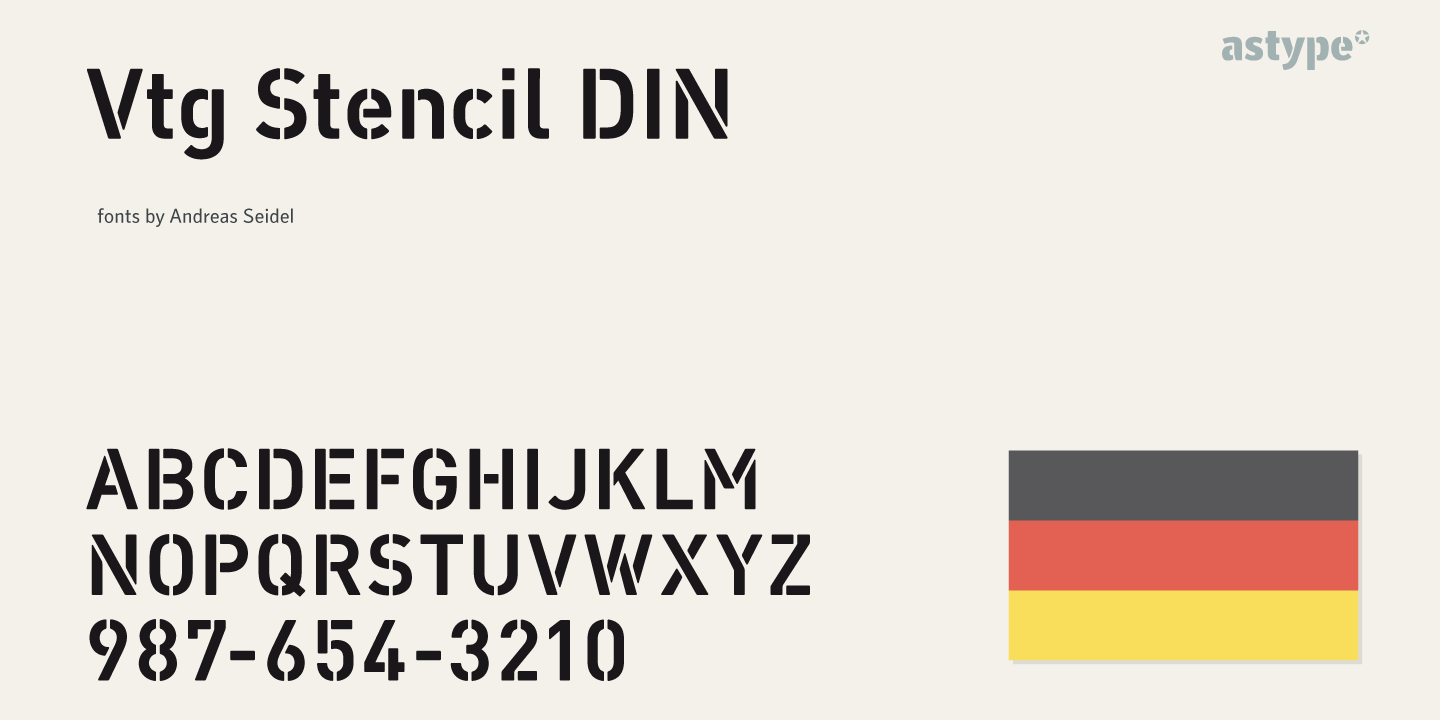
Unleash industrial-strength typography with VTG Stencil DIN Font Free Download – a rugged, no-nonsense typeface that combines German engineering precision with raw urban edge. Inspired by military stencils and technical blueprints, this commanding font delivers unmistakable character for projects demanding toughness and authenticity.
Why Designers Choose VTG Stencil DIN:
Authentic Stencil Breaks with realistic cutouts
3 Weight Variations (Regular, Bold, Extra Bold)
DIN-Inspired Precision with urban weathering
Perfect Readability even in distressed applications
Industrial-Strength Applications:
Military-inspired branding and apparel design
Industrial equipment labeling and packaging
Automotive/mechanical workshop graphics
Urban streetwear and skateboard designs
Construction/trade business branding
Full uppercase alphabet with numerals
Standard punctuation and symbols
Alternate stencil versions for variety
Design Tip: Distress the font with grunge textures or pair with metal/concrete backgrounds for maximum industrial impact. The breaks remain readable even at small sizes.